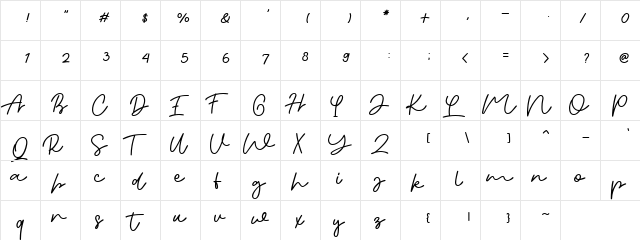
Orabelle Regular
| Foundry | Crump Hand |
| Designer | Stefie Justprince |
Design Context for Orabelle Typeface
Orabelle is a composed and adaptable typeface that performs quietly and consistently across a wide range of design contexts.